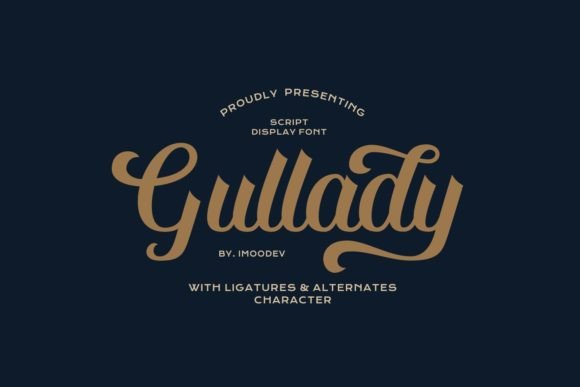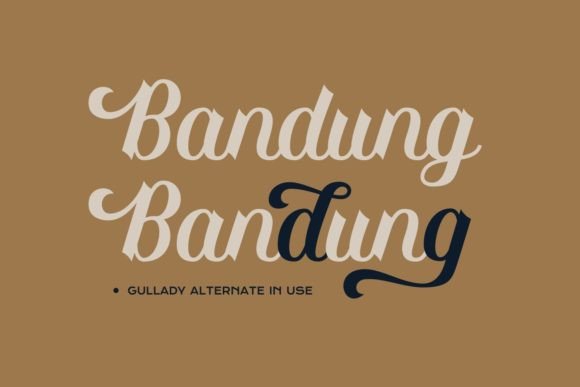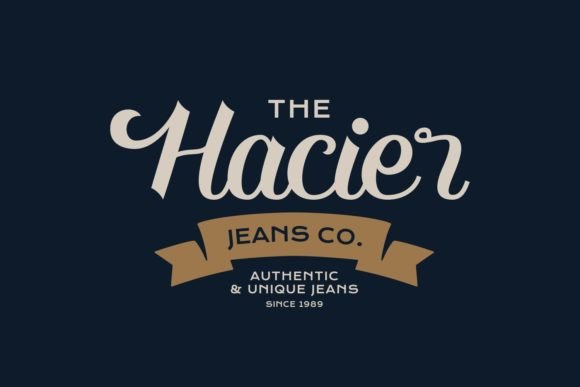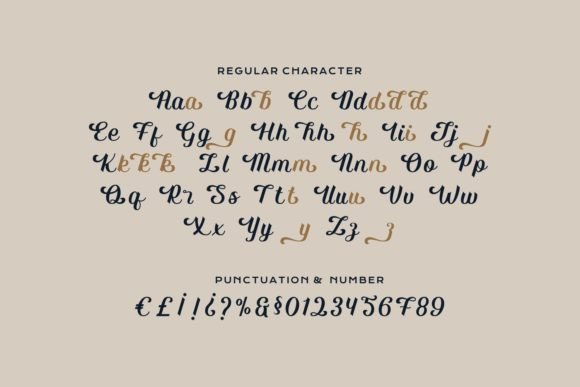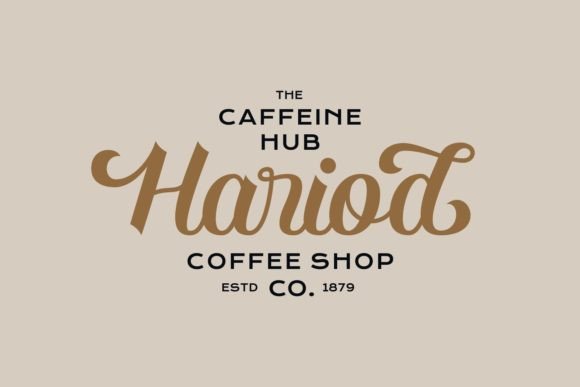
About Gullady Font
Gullady font is a beautifully designed handwritten cursive typeface that blends elegance with smooth, flowing curves and stunning ligatures. This font brings a refined and authentic look to your creative work, making every design feel polished and professional. Whether you are designing for print or digital platforms, Gullady offers versatility and style that fits a wide variety of projects.
Elegant Handwritten Cursive Style
Gullady font features visually elegant strokes that mimic natural handwriting with a graceful cursive flow. Its smooth curves and carefully crafted ligatures make your text look cohesive and attractive. The font maintains clarity and beauty, ensuring it works well in different sizes without losing detail or style.
Versatile for Multiple Design Applications
This font is incredibly versatile and fits many creative uses, including:
Logos and Branding: Give your brand a sophisticated, handcrafted feel that resonates with quality and elegance.
Invitations and Greeting Cards: Perfect for adding a personal touch to special occasion materials.
Magazine and Editorial Design: Adds a classy touch to headers, quotes, and editorial layouts.
Product Packaging and Mockups: Enhance packaging designs with a font that speaks of authenticity and style.
Social Media and Digital Content: Create eye-catching posts, banners, and ads with elegant typography.
Merchandise and Promotional Materials: Ideal for mugs, t-shirts, posters, labels, and more.
Business and Personal Project Ready
Gullady font suits a broad spectrum of sectors including personal projects, creative studios, corporate brands, creative agencies, industrial companies, and more. Its timeless elegance and modern feel make it adaptable across different markets and purposes.
Why Choose Gullady Font?
Choosing Gullady font means opting for a font that combines style, legibility, and professionalism. Its handwritten cursive nature adds warmth and authenticity while maintaining a clean and elegant look. This balance makes Gullady a reliable choice for designers who want to elevate their work with a classy script.
Tips for Using Gullady Font
Pair with sans-serif fonts to create contrast and modern appeal.
Use on branding materials to communicate sophistication and trust.
Experiment with alternate glyphs and ligatures to create unique typographic designs.
Combine with subtle color schemes to highlight the font’s elegance.
In summary, Gullady font is a versatile and elegant handwritten cursive typeface that brings smooth curves and beautiful ligatures to your design projects. From logos to invitations and packaging to social media, this font will enhance the visual appeal and professional quality of your creative work. Add Gullady font to your design toolkit and enjoy the balance of classic elegance and modern usability.